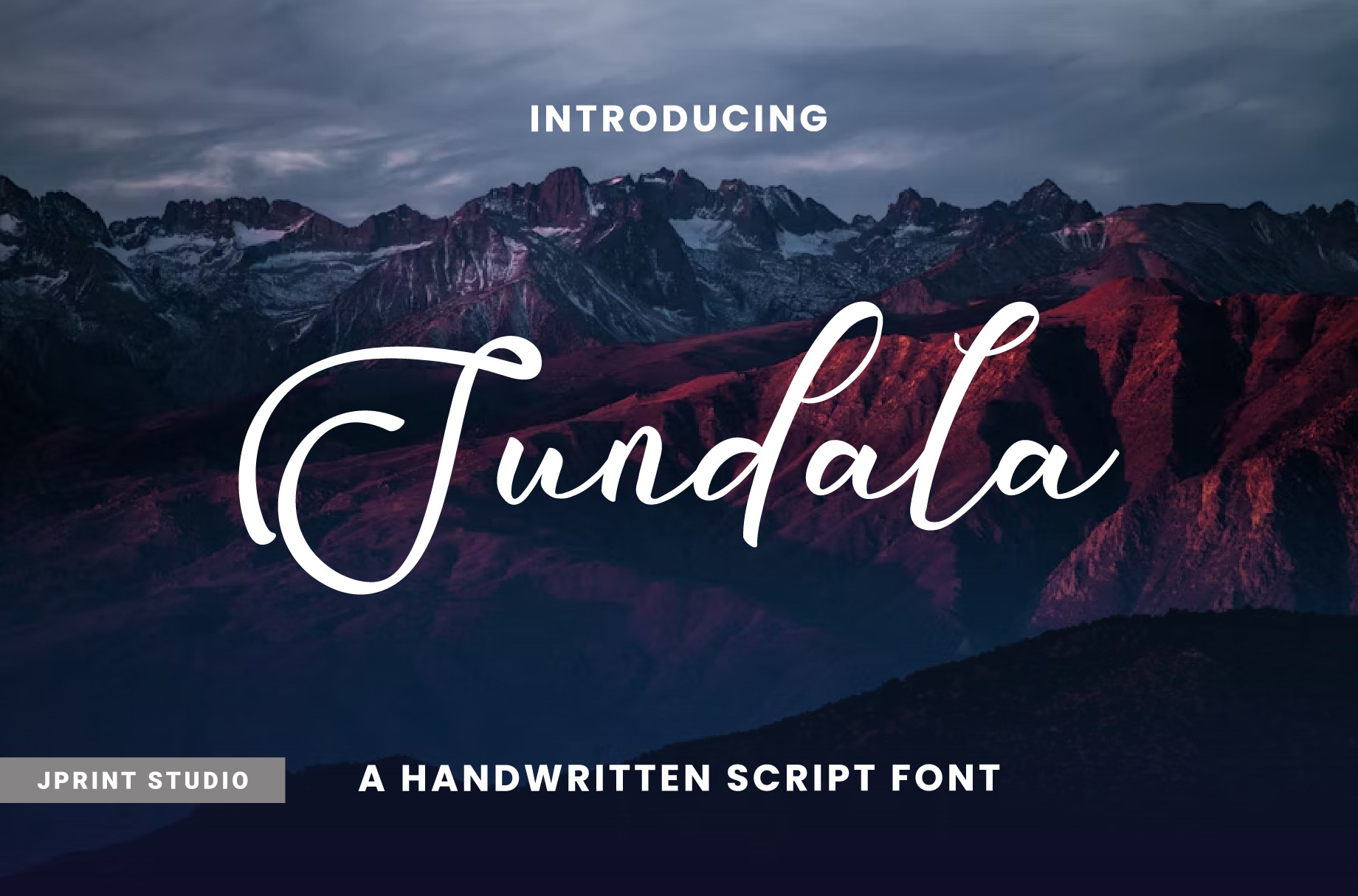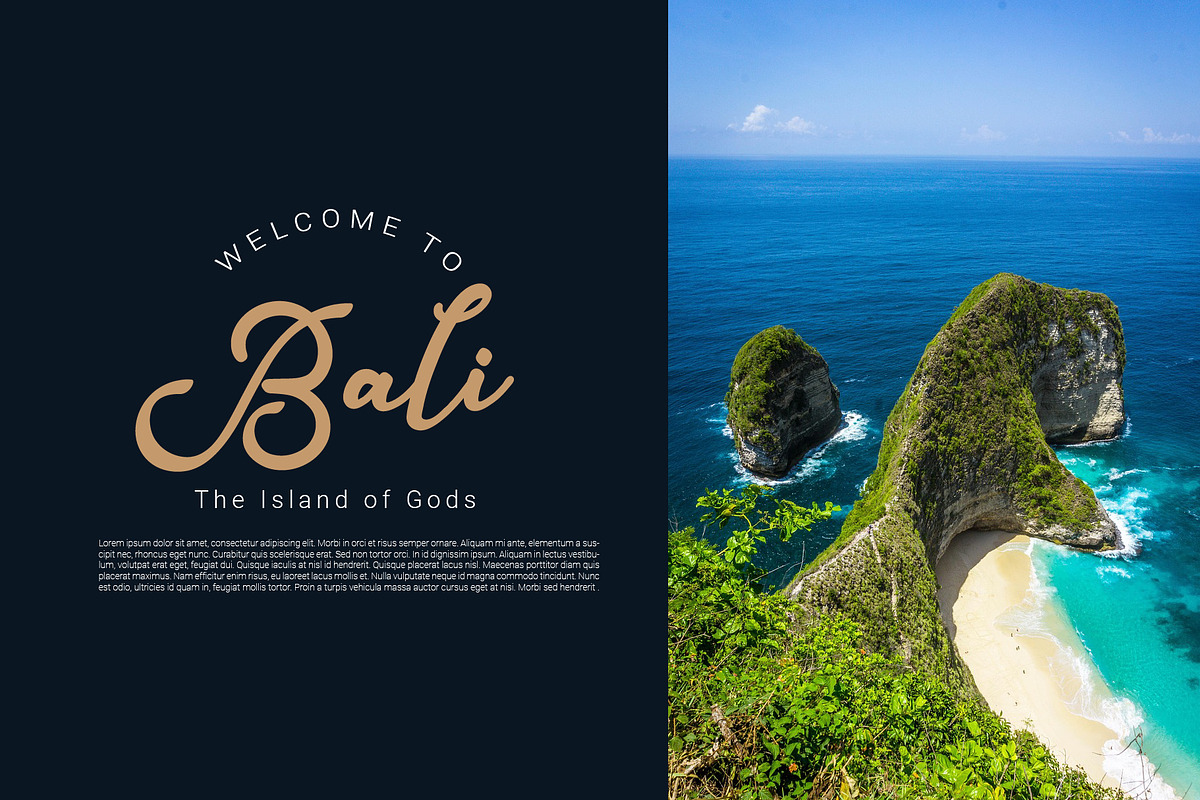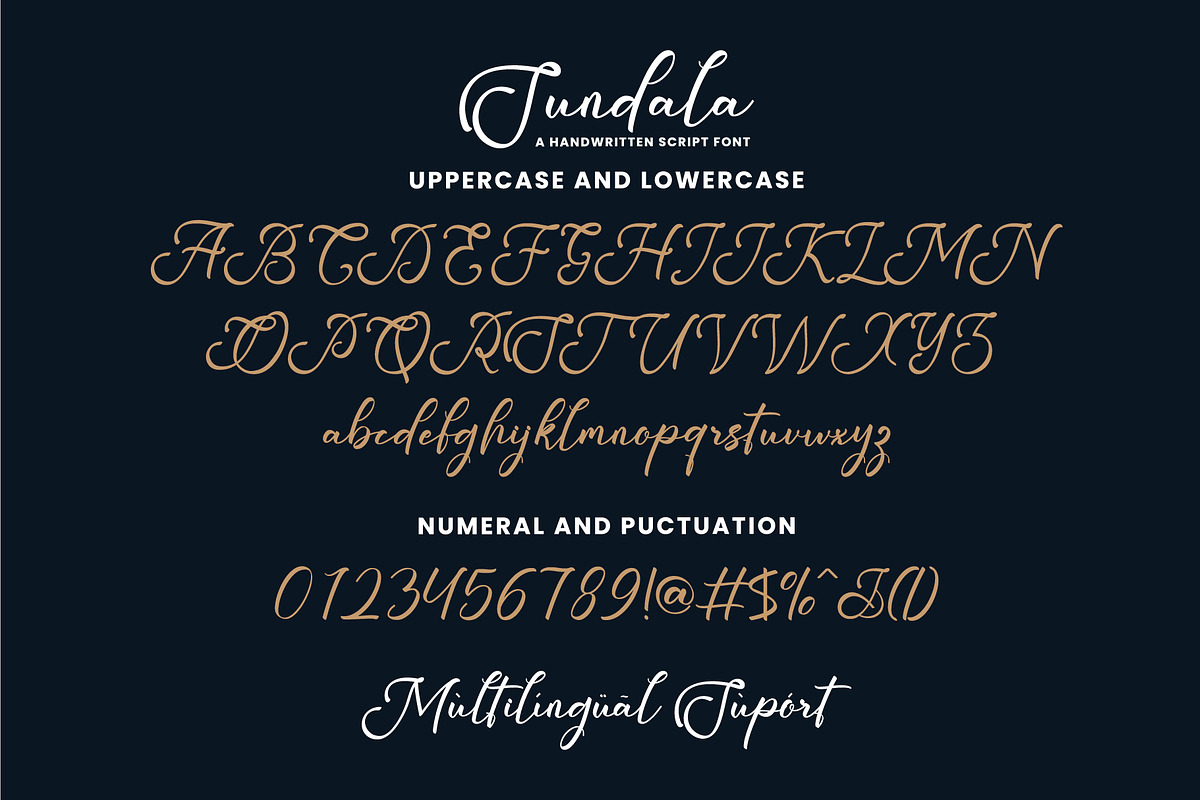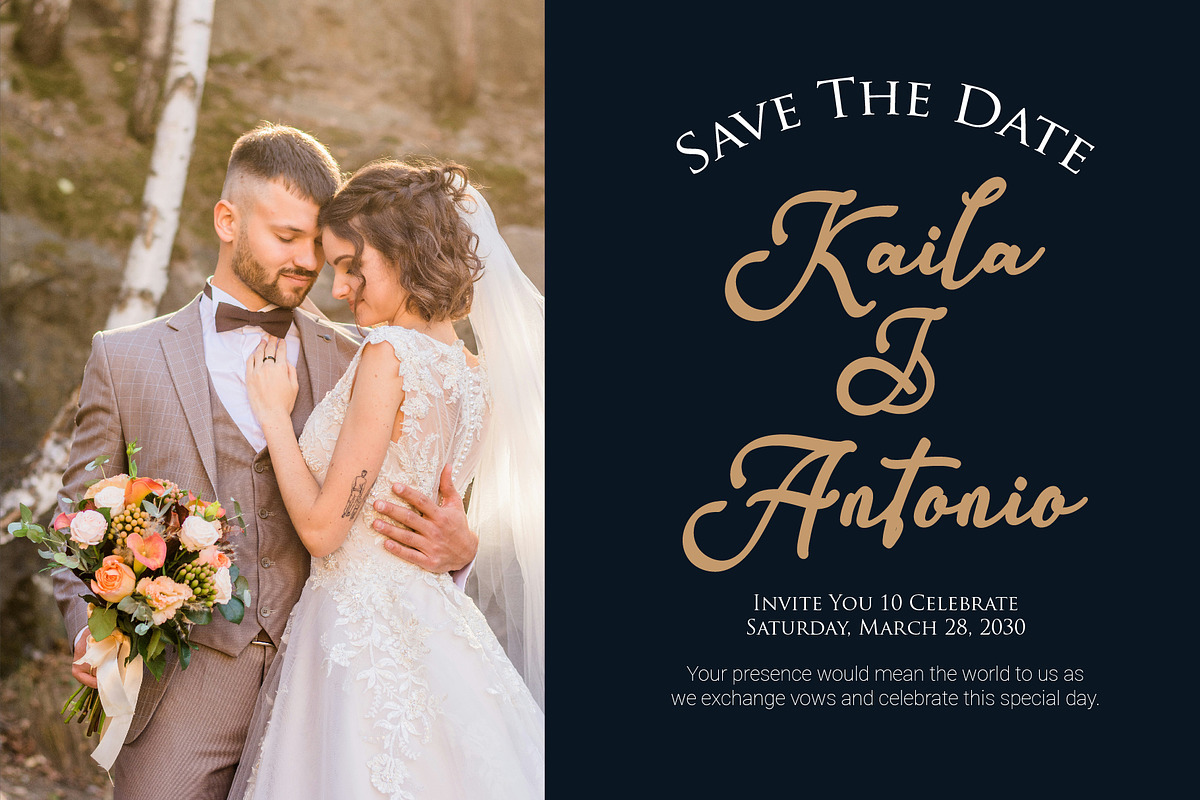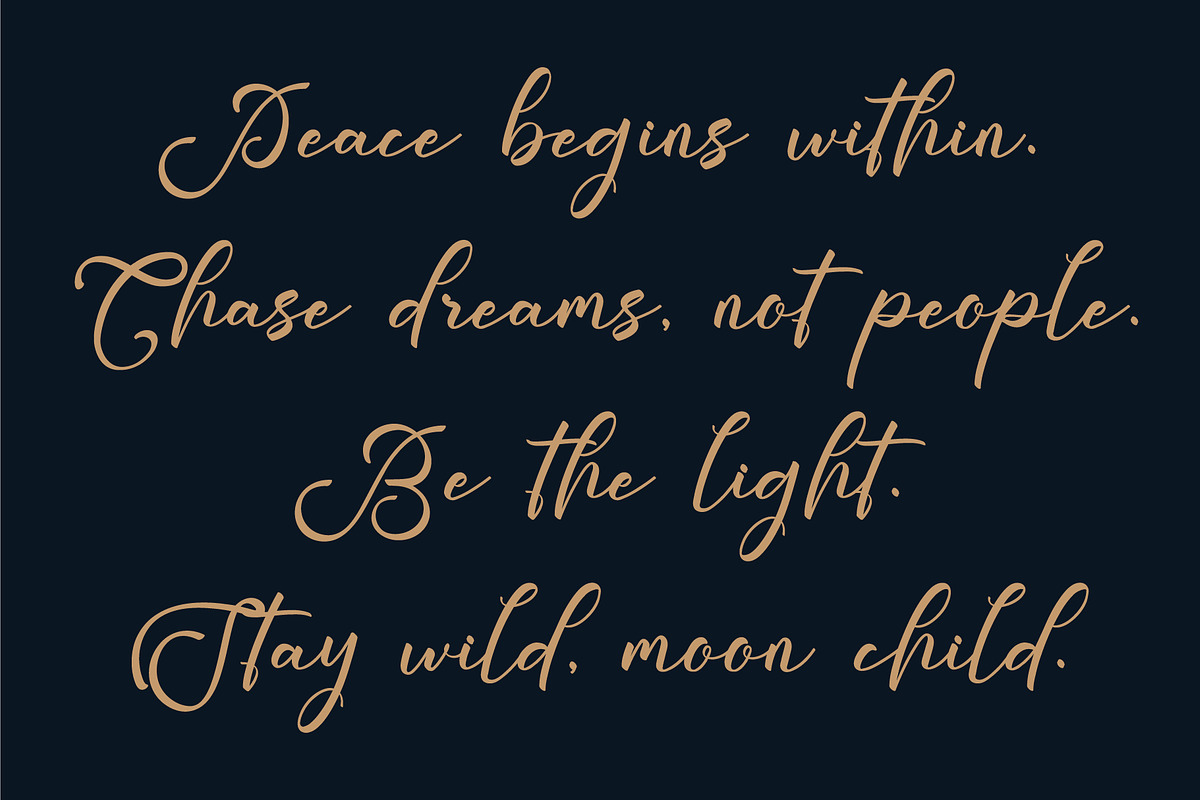
Sundala Script Font
Presenting Sundala - a gracefully casual script font imbued with a welcoming allure. This handwritten gem radiates a laid-back sophistication, making it the ideal pick for crafting breathtaking wedding invites, moving art pieces, or even endowing your delightful social media content and sentimental greeting cards with a personal flourish. With Sundala, the transformation of any artistic idea into a genuine marvel is fluid and effortless.